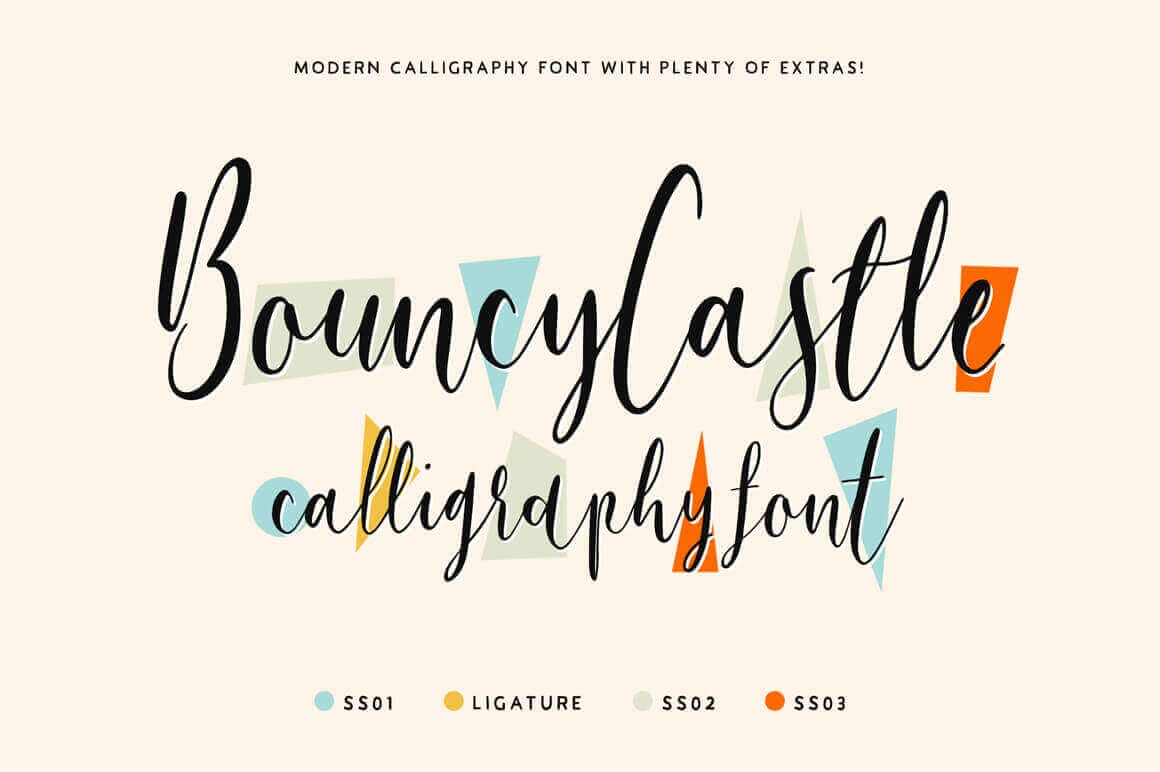
BOING! Add a real bit of bounce to your latest project with the super fun Bouncy Castle Modern Calligraphy Font Family! With four unique typeface sets, this playful handwritten font sports full punctuation and global support for each. Add some spring to everything from T-shirts to wedding invitations with this entertaining font.
- 4 Full Font Sets of alternative letter styles.
- Fun, playful modern calligraphy font.
- Perfect way to add some playfulness to T-shirts, flyers, invitations, posters, weddings and more.
- Multi-lingual support – get your message out globally.
- Full punctuation, uppercase and lowercase for each font.